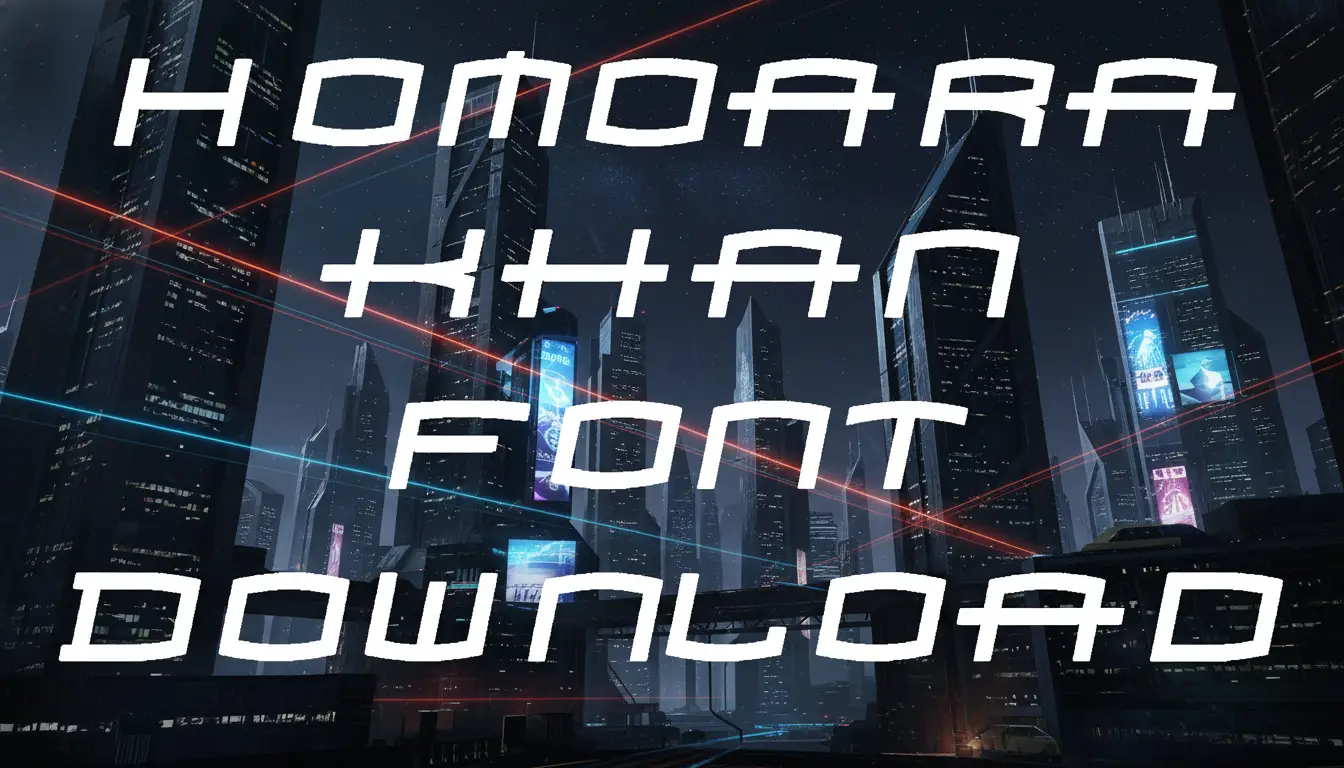
Homoara khan Font
Homoara khan
Homoara khan is a techno font. Its angular, engineered shapes look right at home on screens and tech products. You can download it for free and test it with your own words in the preview above.
What You Can Type With Homoara khan
You get every letter from A to Z in both cases and all the numbers from 0 to 9, which means Homoara khan can handle full sentences, dates and prices. Common punctuation such as !, ?, @ and $ is included as well. It doesn't include accented letters such as é or ñ, which makes it an English-only font.
Where Homoara khan Works Best
Designers usually reach for fonts like Homoara khan when they're making gaming logos, tech branding and futuristic posters. Try it on a dark background with a bright accent color for a sharp, modern look.
Does Homoara khan support accented letters?
No. Homoara khan has no accented letters such as é, ñ or ü, so it's best for English text.
What fonts pair well with Homoara khan?
A simple sans serif like Roboto keeps longer text easy to read next to it.